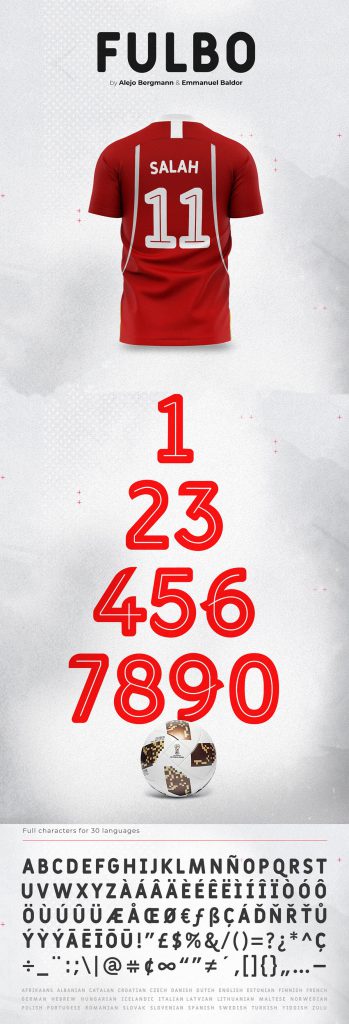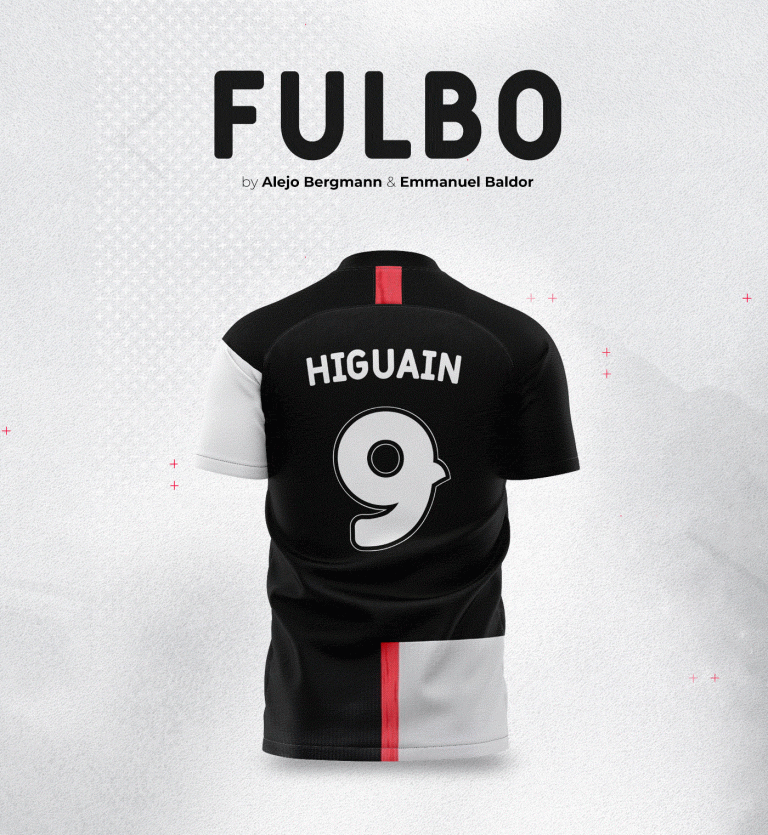
Fulbo Sporty Display Font
From the football pitch direct to your designs. Fulbo Sporty Display Font font was created to maximize the visibility of the numbers when the jersey is in action. Boost your creativity with the five styles of Fulbo Font.